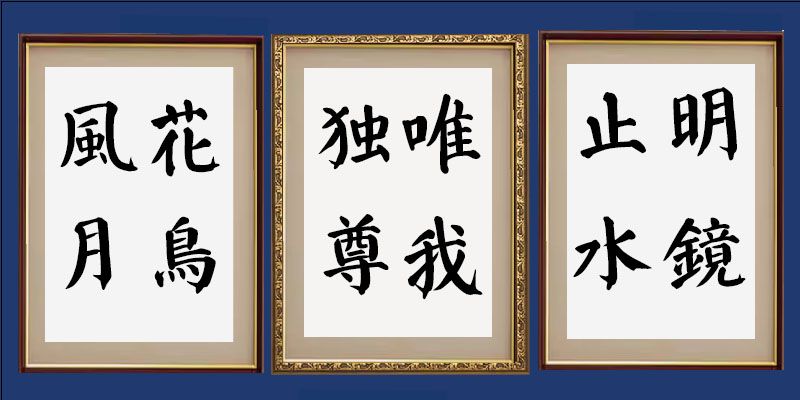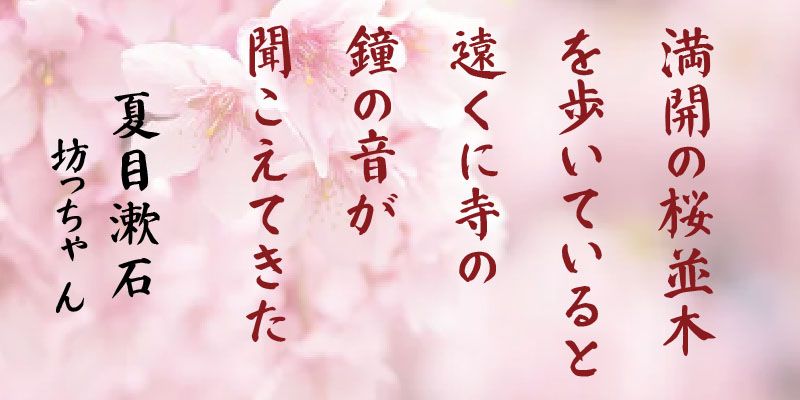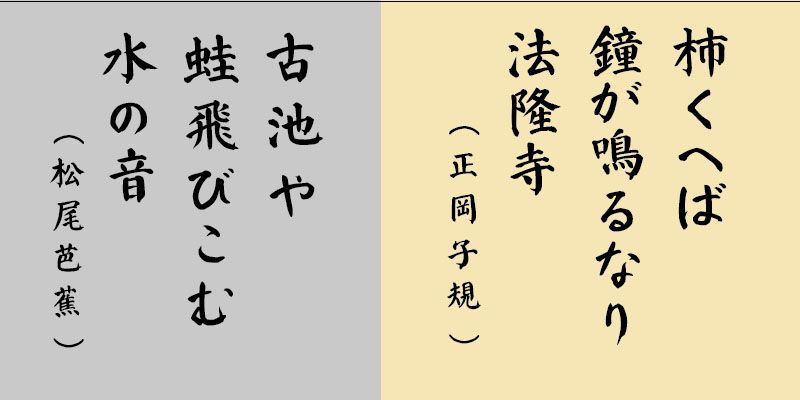
This typeface is based on the calligraphic style of Yán Zhēn Qīng who was active in the Tang dynasty in China. His style is very popular in China today. It features strong and dynamic brushstrokes, known as “silk worm head” and “swallowtail”. The square style typeface was designed to highlight Yan Zhen Qing’s idiosyncratic style – characters with rounded upper parts, strong brushstrokes, and a wide range of varying shapes.
The alphanumeric characters, hiragana, and katakana characters included in each font in this typeface family are designed as proportional glyphs, each with its own unique character width.
With over 60 years of experience in calligraphy, Calligrapher Hakushu Nakamoto has created brush script fonts with beautiful and skillfully handwritten letter forms. He works as a professional calligrapher, offering custom services to meet a variety of client needs. By using Nakamoto’s designs, you will become more familiar with the art of traditional calligraphy.